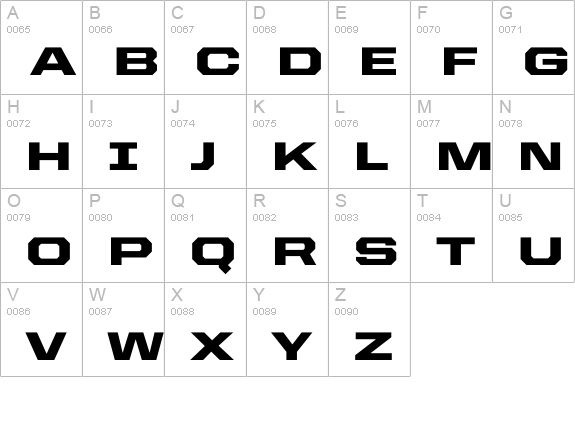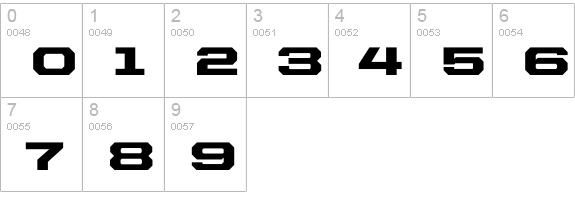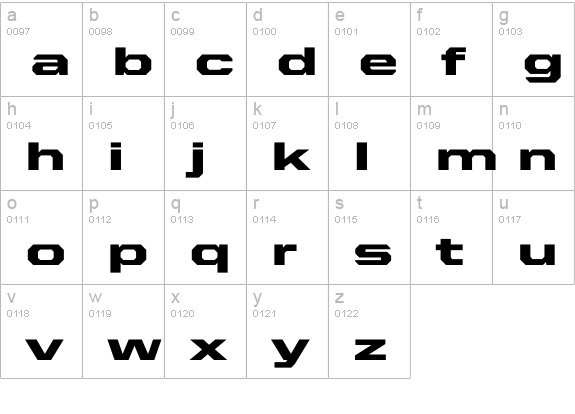
United Sans Ext Black Font Details
United Sans Ext Black is a maximum-weight, dramatic variant in the United typeface family \xE2\x80\x94 well suited to maximum-impact headlines, posters, and packaging.
United Sans Ext Black is a bold and powerful typeface that commands attention with its imposing presence. Designed with a high level of precision and detail, this font exudes confidence and authority. Its thick strokes and strong letterforms make it perfect for headlines, titles, and other display purposes. With its extended character set, United Sans Ext Black offers versatility in expressing your message. Whether you are designing a poster, a logo, or a branding project, this font will deliver a strong impact and leave a lasting impression. What sets United Sans Ext Black apart is not only its exceptional design, but also its accessibility. This font is freely available to download at FontsMarket.com, making it easily accessible to designers, students, and anyone in need of a powerful and versatile typeface. The freedom to use this font in your projects allows for creative exploration and expression without any limitations. The clean and modern aesthetic of United Sans Ext Black is further enhanced by its legibility, ensuring that your message is delivered with clarity and impact. The font's balanced proportions and clear letterforms make it readable even at smaller sizes, making it an excellent choice for body text as well. United Sans Ext Black is a versatile and timeless font that will elevate your designs to new heights. Its bold and commanding presence, combined with its accessibility and legibility, make it a valuable tool in any designer's arsenal. Experience the freedom and impact of United Sans Ext Black by downloading it for free at FontsMarket.com.